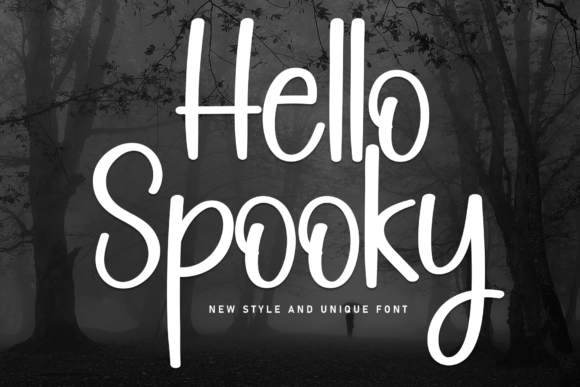
Hello Spooky Font: Add a Touch of Whimsical Spookiness to Your Projects
Are you looking for a font that can add a playful yet eerie feel to your projects? Look no further than the Hello Spooky font. This fun, handwritten font is perfect for Halloween or any project that needs a touch of whimsical spookiness. In this article, we’ll take a closer look at the Hello Spooky font, its features, and how you can use it to add a unique touch to your designs.
What is Hello Spooky Font?
Hello Spooky is a fun, handwritten font with a playful, spooky vibe. Its quirky letters give a friendly yet eerie feel, making it perfect for projects that need a touch of whimsy. The font is designed to be highly legible, making it suitable for use in a variety of projects, from Halloween-themed designs to everyday creative projects.
Features of Hello Spooky Font
The Hello Spooky font has several features that make it stand out from other fonts. Some of its key features include:
- Handwritten style: The font has a handwritten style that gives it a personal and friendly feel.
- Quirky letters: The font’s quirky letters add a playful and spooky touch to any project.
- High legibility: The font is designed to be highly legible, making it easy to read in a variety of sizes.
- Versatile: The font is versatile and can be used in a variety of projects, from Halloween-themed designs to everyday creative projects.
How to Use Hello Spooky Font
The Hello Spooky font can be used in a variety of projects, including:
- Halloween-themed designs: The font is perfect for Halloween-themed designs, such as invitations, posters, and social media graphics.
- Creative projects: The font can be used in everyday creative projects, such as blog posts, social media graphics, and presentations.
- Branding: The font can be used in branding projects, such as logos, business cards, and letterheads.
Benefits of Using Hello Spooky Font
There are several benefits to using the Hello Spooky font, including:
- Unique look: The font has a unique look that will set your projects apart from others.
- High legibility: The font is highly legible, making it easy to read in a variety of sizes.
- Versatile: The font is versatile and can be used in a variety of projects.
Tips for Using Hello Spooky Font
Here are a few tips for using the Hello Spooky font:
- Use it sparingly: The font is best used sparingly, as it can be overwhelming if used too much.
- Pair it with other fonts: The font can be paired with other fonts to create a unique look.
- Experiment with different sizes: The font can be used in a variety of sizes, from large headings to small body text.
The Hello Spooky font is a fun, handwritten font with a playful, spooky vibe. Its quirky letters give a friendly yet eerie feel, making it perfect for projects that need a touch of whimsy. With its high legibility, versatility, and ease of use, the Hello Spooky font is a great addition to any designer’s font collection.
- What is the Hello Spooky font? The Hello Spooky font is a fun, handwritten font with a playful, spooky vibe.